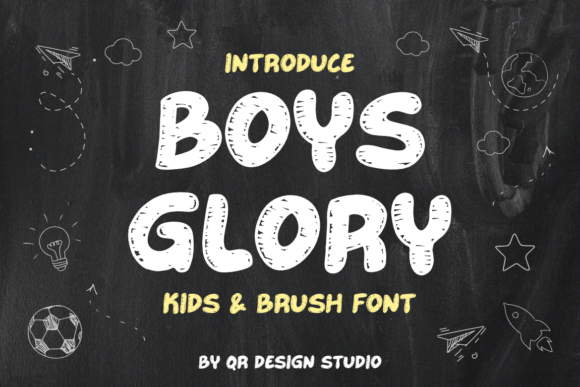
The Joy of Boys Glory Font: A Friendly Companion for Creative Projects
I’ll never forget the time I was working on a children’s party invitation project, and I just couldn’t find the right font to convey that playful, cheerful vibe. My client wanted something that would appeal to both kids and parents, and I was determined to deliver. That’s when I stumbled upon Boys Glory Font, and it instantly became my go-to font for the project. In this article, I’ll share my love for this delightful font, its features, and how to make the most of it in various design platforms.
An Honest Review of Boys Glory Font
What I Love About Boys Glory Font ✨
- ✅ Friendliness**: Boys Glory Font exudes warmth and approachability, making it perfect for projects that require a personal touch.
- ✅ Readability**: The font is incredibly easy to read, even at smaller sizes, which is a blessing for digital designers and crafters.
- ✅ Versatility**: Whether you’re creating crafts, digital designs, presentations, or greeting cards, Boys Glory Font adapts seamlessly to various formats.
- ✅ Childish charm**: The font’s playful, childlike essence is sure to bring a smile to your audience’s faces.
While Boys Glory Font is an excellent choice for many projects, it’s essential to note a few minor limitations:
- ⚠️ Legibility at very small sizes**: While the font is generally easy to read, it may become a bit blurry at extremely small sizes (below 10px).
- ⚠️ Limited formal applications**: Due to its playful nature, Boys Glory Font might not be the best fit for formal or professional projects that require a more serious tone.
The Backstory Behind Boys Glory Font
Rumor has it that Boys Glory Font was created by a designer who wanted to craft a font that would make children smile. Inspired by vintage children’s books and playful typography, the designer poured their heart into creating a font that’s both fun and legible. While the designer’s true identity remains a mystery, one thing is clear: Boys Glory Font has captured the hearts of designers and crafters worldwide.
Q: Is Boys Glory Font available in different weights or styles?
A: Currently, Boys Glory Font is available in a single weight, but its versatility and charm make it an excellent choice for various design projects.